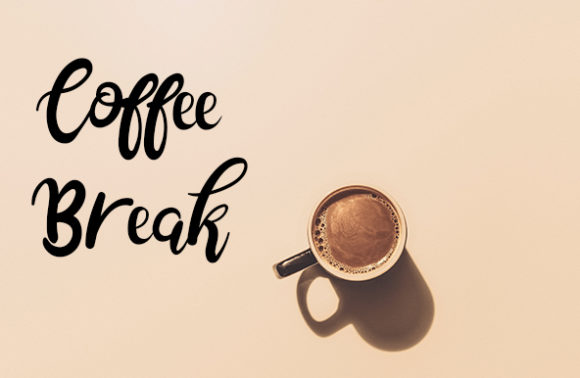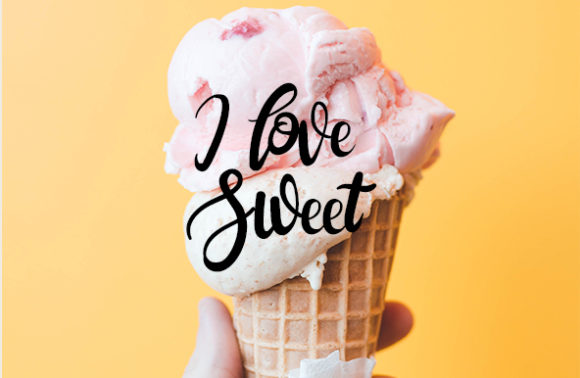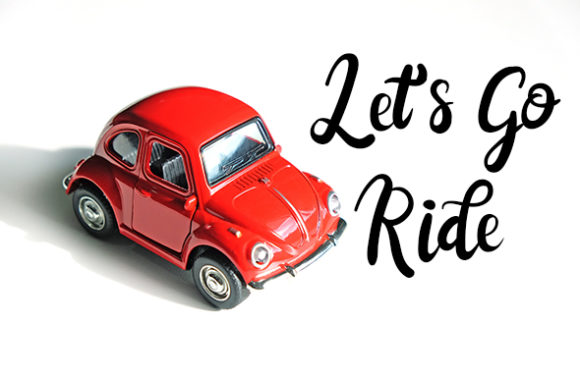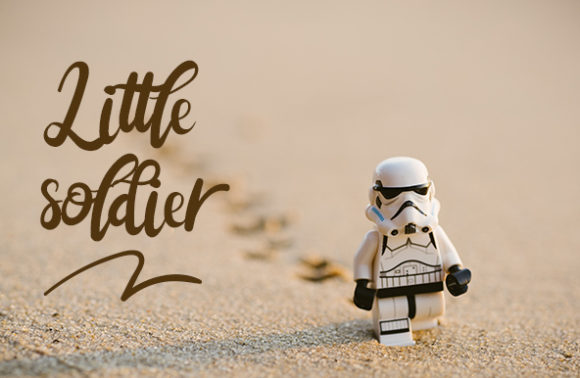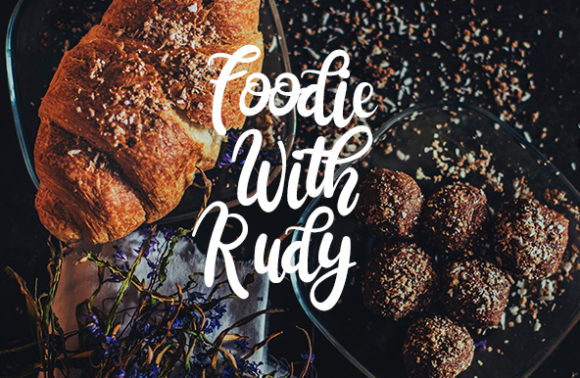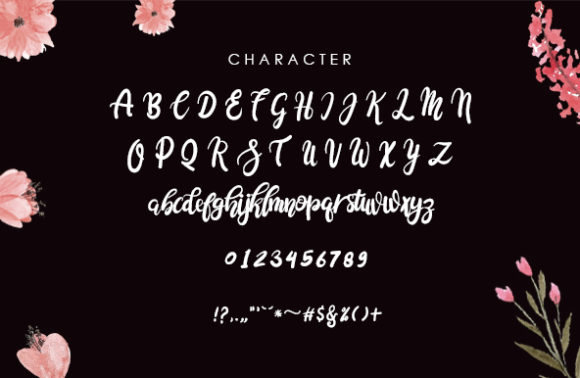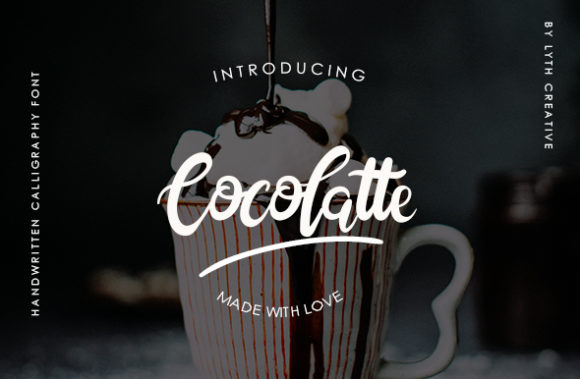
Cocolatte Font: Elevate Your Designs with Elegant Calligraphy
In the world of design, typography plays a crucial role in conveying the tone and aesthetic of a project. For designers and crafters seeking to add a touch of elegance and sophistication to their work, the Cocolatte font is an exceptional choice. This beautiful calligraphy font boasts a unique style characterized by elegant movements, making it perfect for a wide range of design applications.
What is Cocolatte Font?
The Cocolatte font is a stunning calligraphy typeface that exudes refinement and poise. Its distinctive style is marked by fluid, cursive lines and a sense of movement, which lends a dynamic and creative feel to any design. Whether you’re working on branding projects, logos, wedding designs, or social media posts, the Cocolatte font is sure to make a lasting impression.
Key Features of Cocolatte Font
- Elegant Calligraphy Style: The Cocolatte font features beautiful, flowing script lines that add a touch of sophistication to any design.
- Unique and Distinctive: Its unique style sets it apart from more traditional fonts, making it perfect for designers looking to stand out.
- Versatile: The Cocolatte font can be used across a variety of design projects, from branding and advertising to packaging and photography.
- Ease of Use: Designed to be user-friendly, it can be easily integrated into your design workflow.
Use Cases for Cocolatte Font
The versatility of the Cocolatte font makes it suitable for a multitude of design projects. Here are some of the most popular applications:
- Branding Projects: Establish your brand identity with a sophisticated and memorable logo or wordmark.
- Logos: Create a lasting impression with a unique and elegant logotype.
- Wedding Designs: Add a touch of romance and elegance to wedding invitations, save-the-dates, and more.
- Social Media Posts: Elevate your social media presence with stylish and engaging text.
- Advertisements: Capture attention with elegant and compelling ad copy.
- Product Packaging: Stand out on store shelves with beautiful and distinctive packaging design.
- Product Designs: Incorporate the Cocolatte font into product designs for a refined look.
- Labels: Create eye-catching labels for products, events, or promotions.
- Photography: Use the Cocolatte font for watermarks or photo captions to add an elegant touch.
Why Choose Cocolatte Font?
In a sea of fonts, the Cocolatte stands out for its unique blend of elegance and creativity. Here are a few reasons why designers and crafters are drawn to this beautiful calligraphy font:
- Unique Style: The Cocolatte font offers a fresh alternative to traditional typography, allowing designers to create distinctive and memorable designs.
- Ease of Use: Despite its elegant appearance, the Cocolatte font is easy to use and integrates seamlessly into most design software.
- Versatility: Its wide range of applications makes it a valuable addition to any designer’s toolkit.
Tips for Using Cocolatte Font Effectively
To get the most out of the Cocolatte font, consider the following tips:
- Pair with Complementary Fonts: Combine the Cocolatte font with simpler fonts to create visual interest and hierarchy in your designs.
- Experiment with Colors: While the font itself is elegant, experimenting with different colors can enhance its beauty and adapt it to your brand’s aesthetic.
- Play with Sizes: Utilize varying font sizes to create emphasis and add depth to your designs.
| Font Name | Cocolatte Font |
The Cocolatte font is a beautiful and versatile calligraphy typeface that can elevate a wide range of design projects. Its unique style, characterized by elegant movements, makes it perfect for designers and crafters looking to add a touch of sophistication and grace to their work. Whether you’re creating branding materials, wedding designs, social media posts, or product packaging, the Cocolatte font is sure to make a lasting impression.